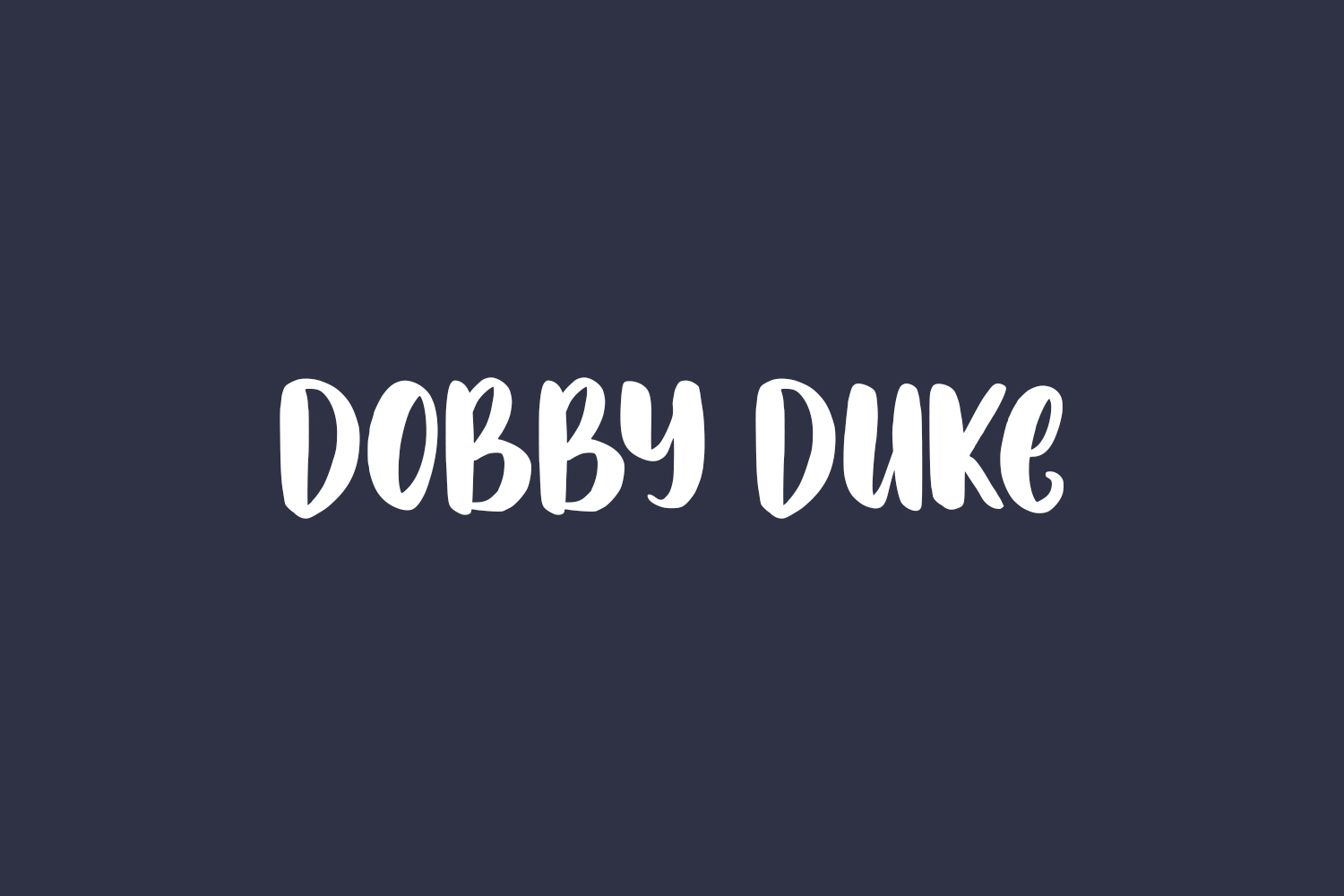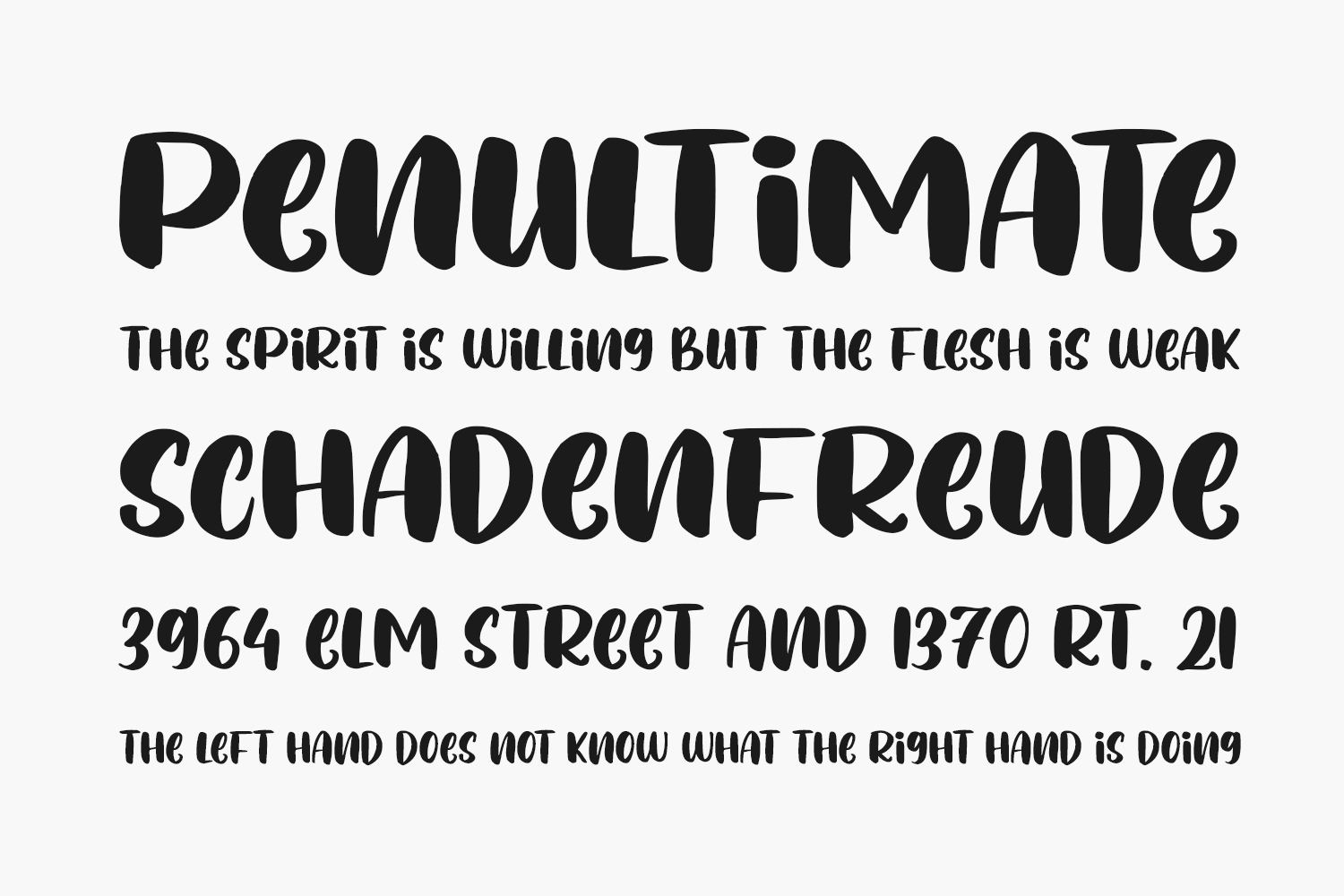
Dobby Duke Free Font is a cute and playful display font. It will add an incredibly joyful touch to your designs. Add this beautiful display font to each of your creative ideas and notice how it makes them stand out. Dobby Duke Free Font was designed by FatmaStudio and is free for personal use only. Please purchase the full version for commercial use.